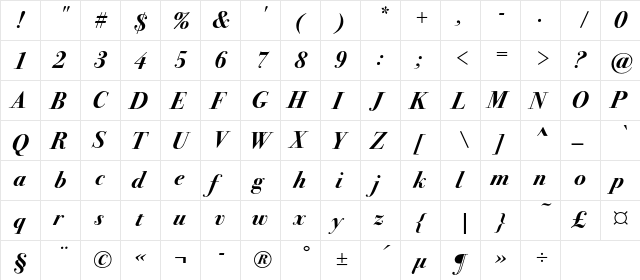
Bodoni72C Bold Italic
Design Context for Bodoni72C Typeface
Bodoni72C offers clean, dependable letterforms without strong stylistic allegiance, making it a practical choice for designers who need flexibility. Its italic angle brings a sense of urgency and motion to the letterforms. The heavy weight commands attention and anchors typographic hierarchies.
Pro Tip: Use Bodoni72C for emphasis, pull quotes, and subheadings where its slanted energy can add rhythm to the layout.